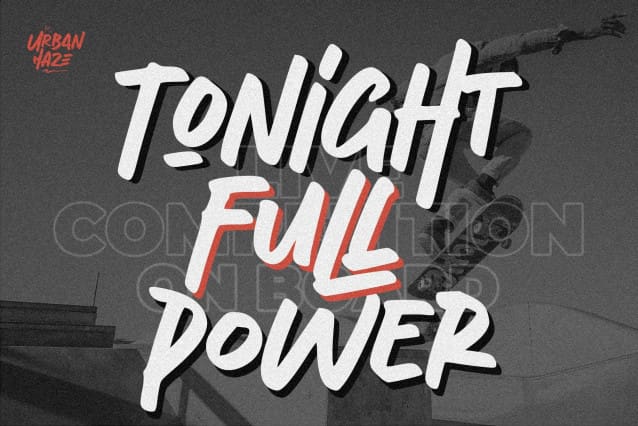
Urban Haze Font
Urban Haze Font, This is a brush font, with simple drawing and brushing style, this font is perfect for making a strong statement in your designs.
Add the bold and authentic character of this Font to your next project and capture the essence of the minimalist aesthetic.